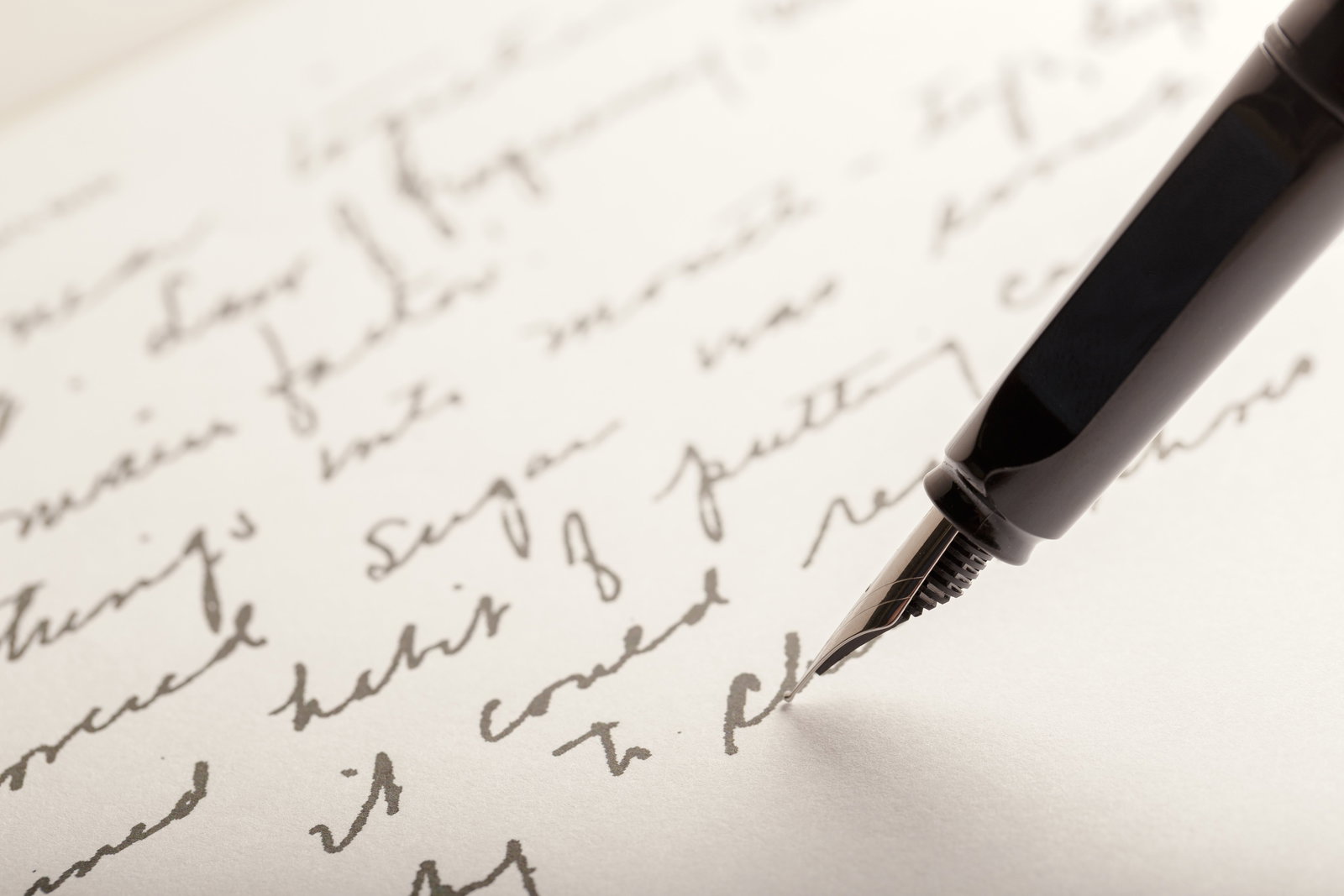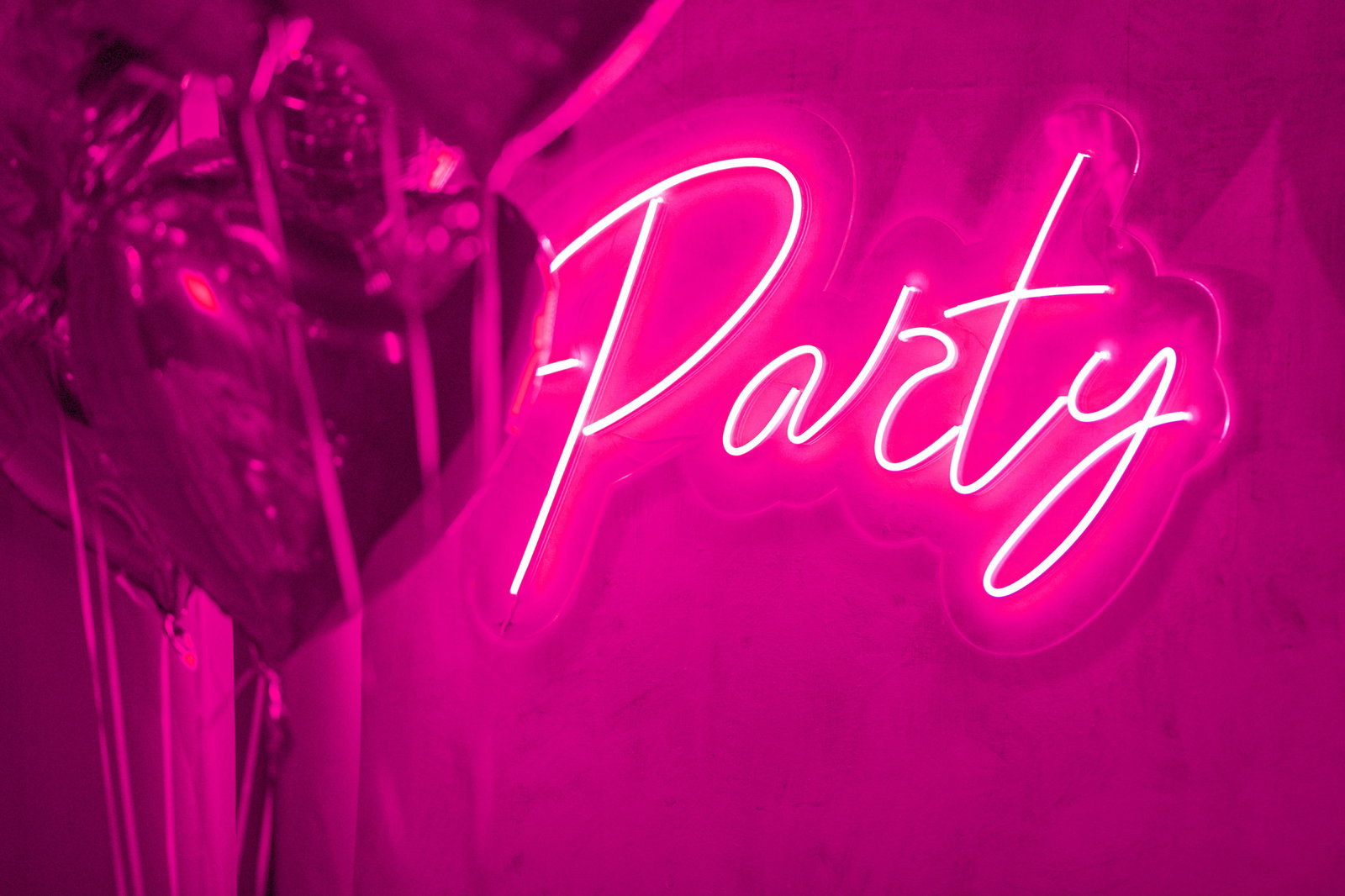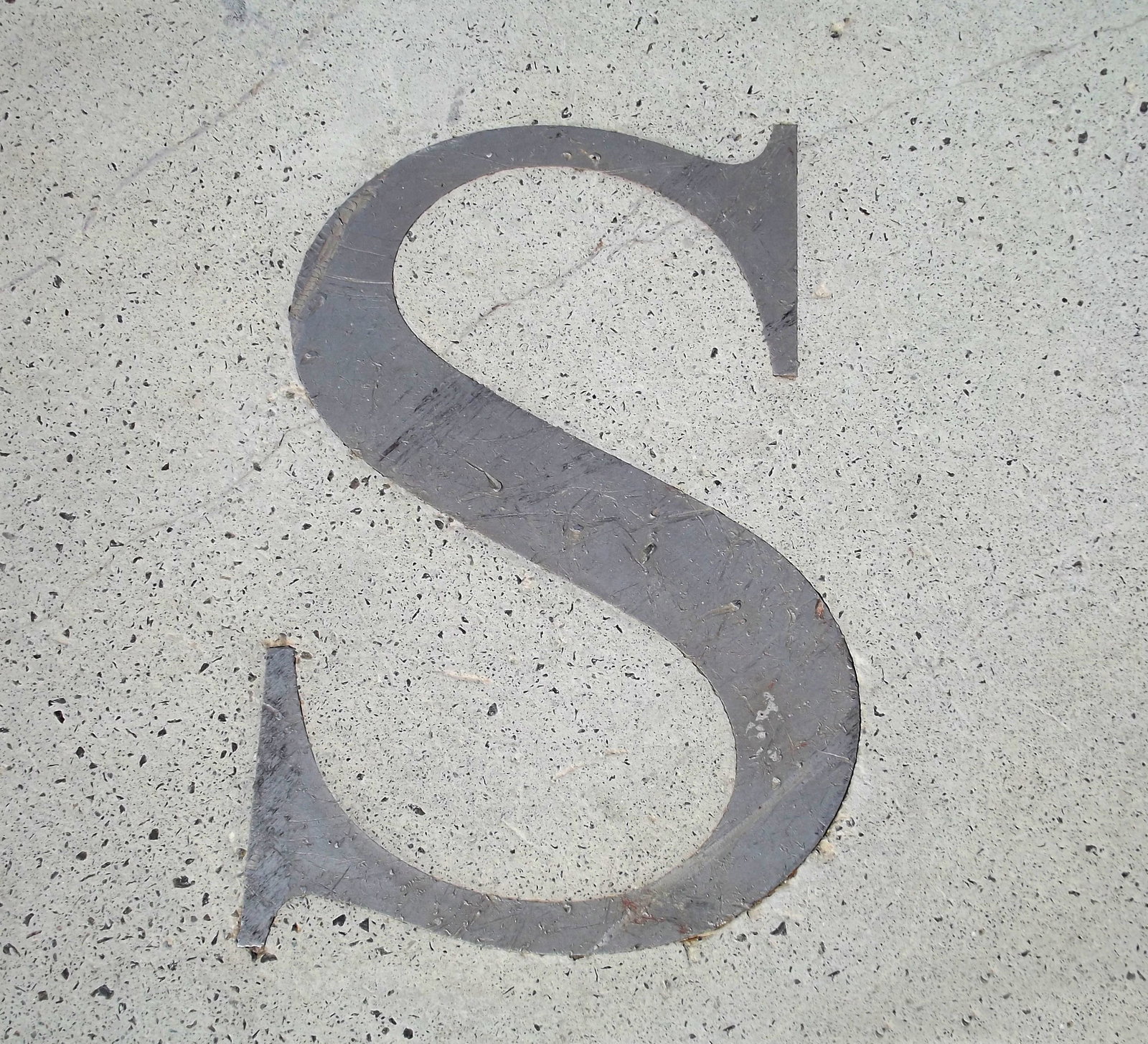
Whether you’re a podcaster or comedian, vlogger, or artist, TikTok can be a great platform for you to reach your audience. Captioned, subtitled, and headline-carrying clips get better engagement, so you might want to make it a habit to add captions and text to your TikTok videos. Here are your font options.
TikTok uses Classic, Typewriter, Handwriting, NEON, and Serif fonts, each of which has different connotations and can be used for headlines or caption texts. Text captions like “wait for it” can reduce the skip rate, while actual subtitles can increase watch time. But it is crucial to use a legible font.
Classic
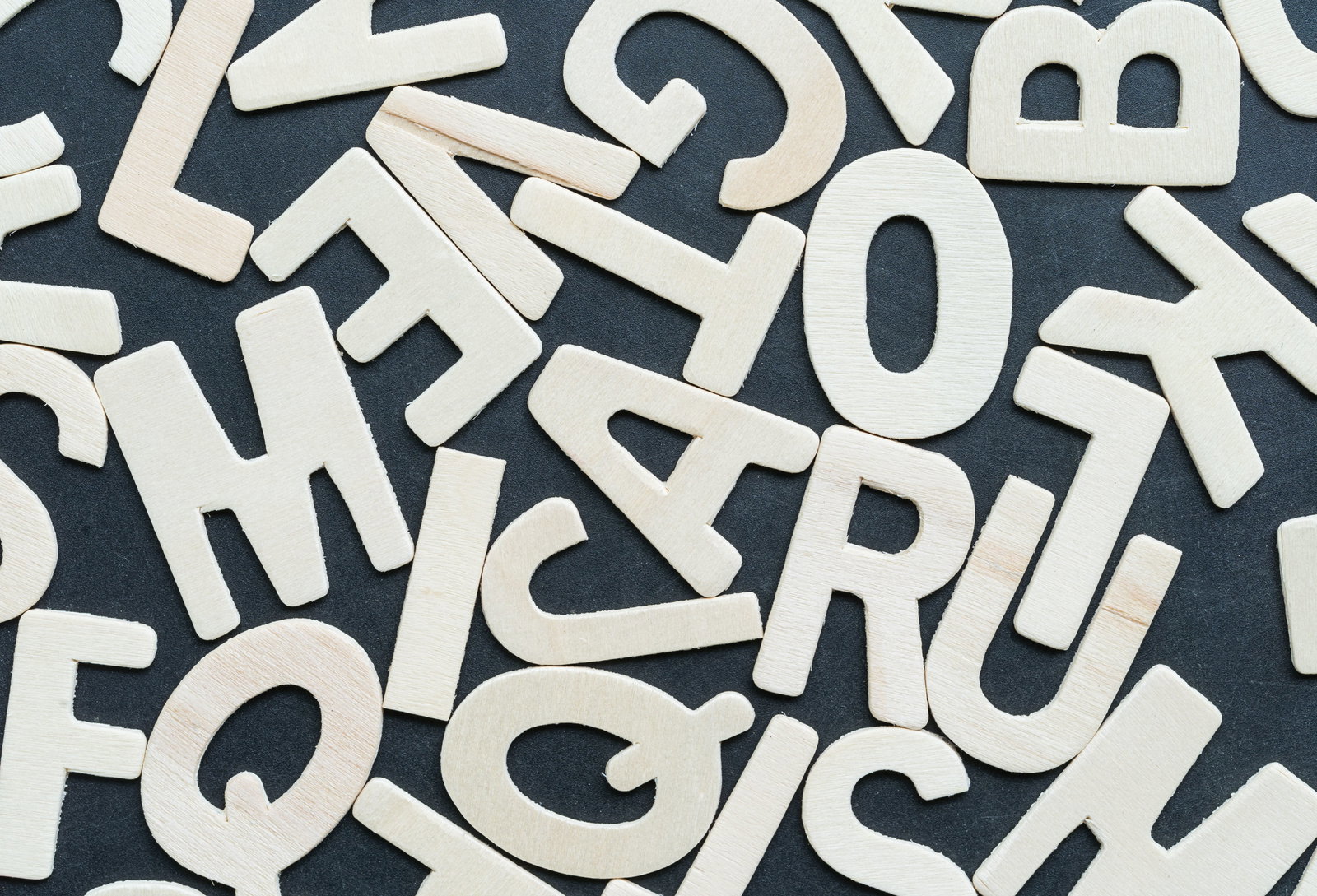
Classic font is the default font for captions on TikTok. It has a rounded property, and the lettering is commonly associated with TikTok because of how often it is used. Classic TikTok caption isn’t designed to have a very particular type of feel. It can go on funny videos, advice clips, and even keynotes.
With the excessive exposure of this font, though, specialists are starting to avoid it. While it is great to have a following on TikTok, it doesn’t serve your specialist brand to be associated with TikTok only.
Use the Classic font for:
- Podcast Clips - podcast clips are among spoken word content categories that can benefit the most from captioning and headlines. Because most podcasts are casual media, the Classic font doesn’t clash with their inherent themes.
- Mini Vlogs - If you post recaps of your day or highlights of your adventures (travel, bar hopping, dining establishments, etc.), then a broad and casually accessible font like TikTok Classic can help you connect with your viewers.
- Standup Comedy - Standup comedy is the type of spoken word content that is compatible with most ‘everyday fonts.’ The conventions of Standup are not very tightly guarded. You can get away with using any font that isn’t strictly formal or downright unreadable.
- Skits and Sketches - Skits and sketches follow the same rationale as standup comedy. The clips can be titled or captioned with the Classic font as it is accessible, readable, and not too serious.
Don’t use Classic font for:
- Educational content captions - Educational content is at the risk of being taken too casually if it is written in the Classic font. This was not the case before the Classic font became casual and comedy TikToks due to its overuse in common TikTok clips.
- Luxury-related content - Luxury content has to create an air of exclusivity. The Classic font is so overexposed that it serves the opposite purpose. One of the easiest ways to make your brand look cheap is to start using the Classic font on its official TikTok videos.
Typewriter
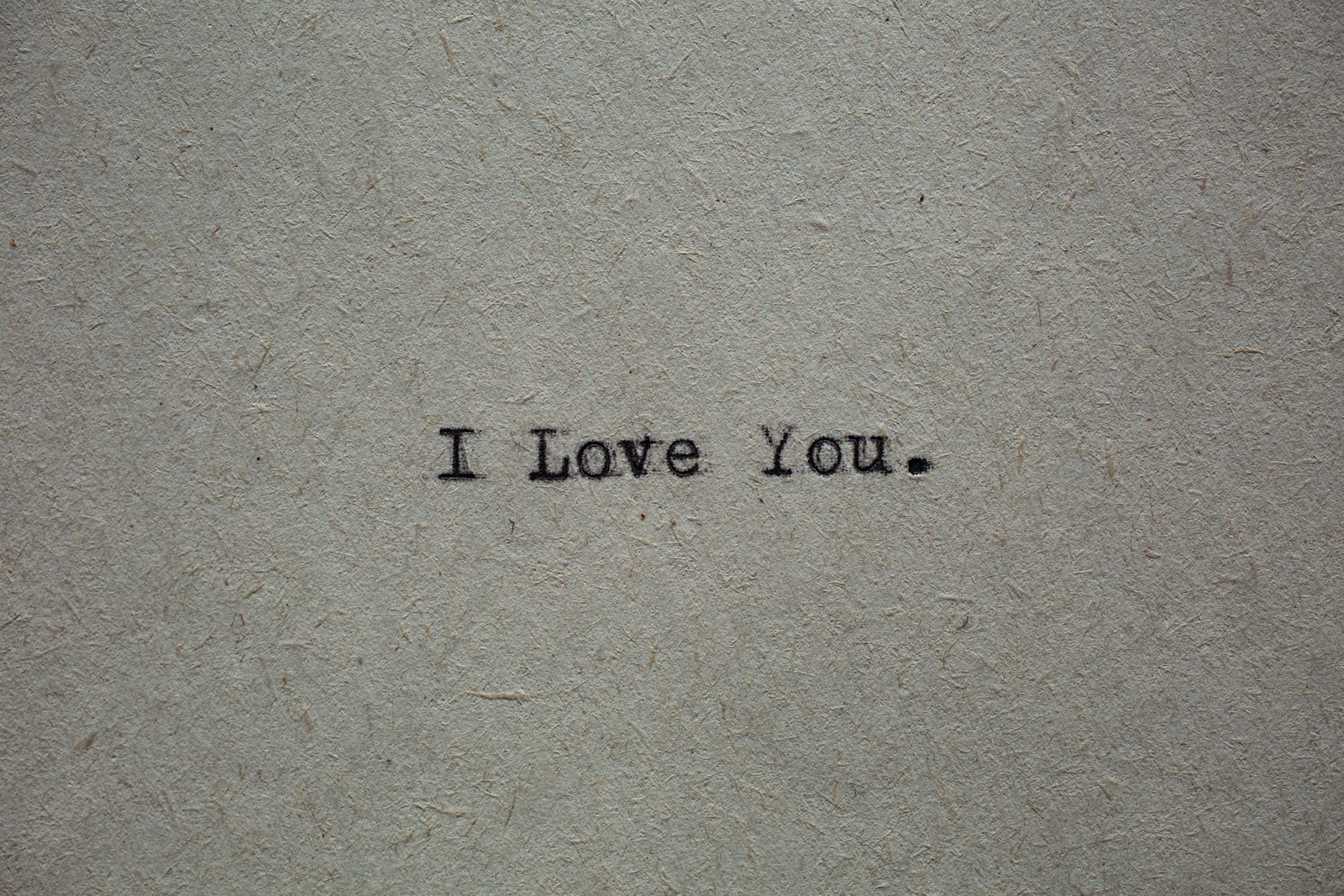
Typewriter is a quirky font in the context of TikTok. It features a font mimicking the typeface of a traditional typewriter. The typewriter font has high readability even with multiple lines of text. That’s why it is meant to be used for longer on-screen captions.
The typewriter font doesn’t have broad compatibility as it is assumed to be more educational. It’s not as on the nose as being exclusive to writers only. Still, the people who would find it the most relevant to their brand are most likely educationists, speakers, and advice vloggers.
Use typewriter font for:
- Advice - Advice content needs lengthy captions at times. The typewriter font is perfect for writing longer captions. It is also not compatible with comedy, so it gets taken a little more seriously.
- Monologue content - Professional speakers and consultants can use the typewriter font to elaborate on their points or to subtitle them. Again, the lower frequency of the typewriter fonts used with comedy content makes it a great replacement for the Classic font in semi-serious contexts.
Does TikTok use a different font for captions?
Captions and overlay text can render differently depending on the feature used. The safest approach is to treat TikTok as the “distribution surface” and create your caption style before upload so it looks consistent everywhere.
How can I recreate the TikTok font style in my videos?
Pick a clean, readable sans-serif font, use high contrast (white text + shadow/outline), and keep line length short. The “TikTok look” is mostly spacing, size, and placement — not only the font name.